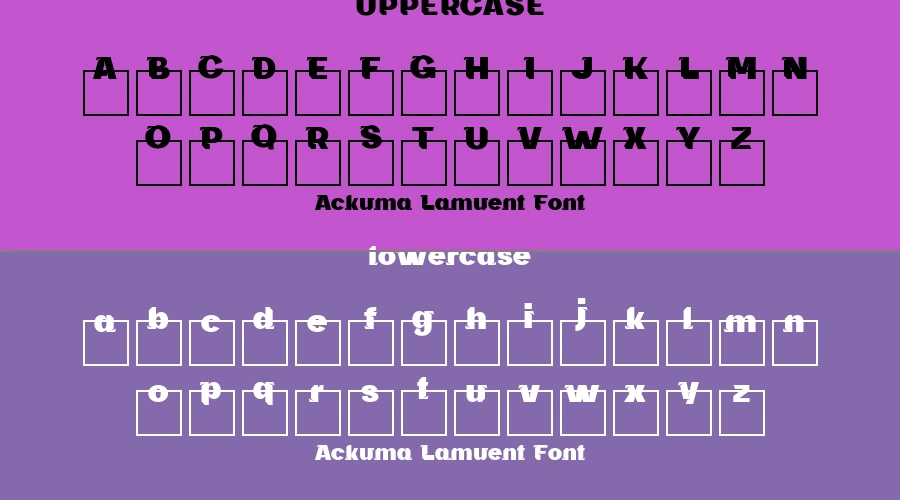
About Ackuma Lamuent Font
Designed with precision, Ackuma Lamuent Font merges sharp terminals with functionality in every character. This versatility makes it particularly effective for digital signage, where refinement and industry recognition directly impact communication quality. Each letterform demonstrates meticulous craftsmanship.
Technical excellence shines through elements like natural flow and terminal forms, enhancing typographic versatility. In running text settings, Ackuma Lamuent Font proves its worth through superior small cap rendering. The thoughtful execution of stroke contrast and contemporary relevance ensures professional results.